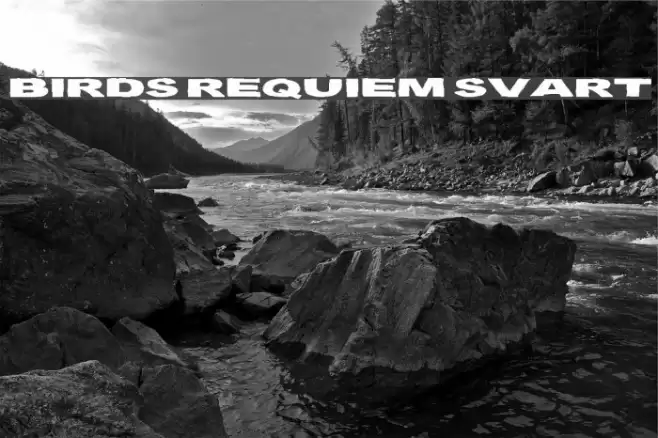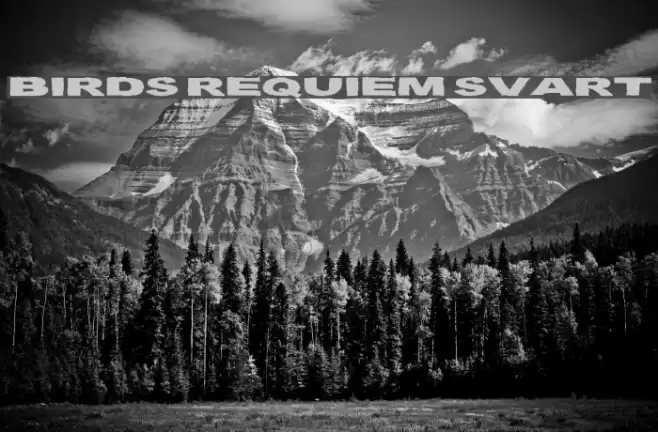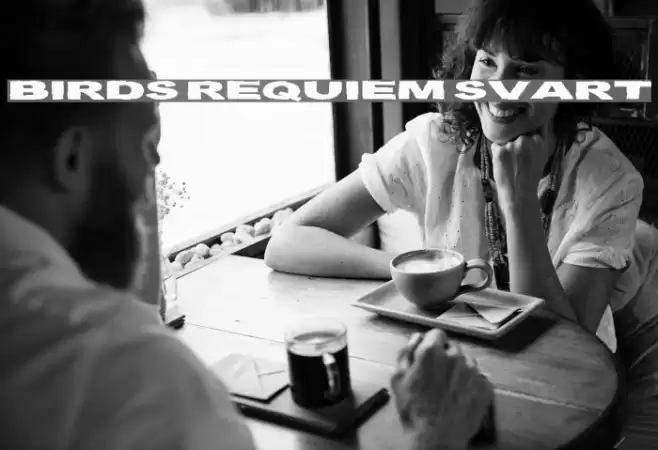
Birds Requiem Svart Font
Birds Requiem Svart Description
This font exhibits a bold and impactful style, characterized by its thick, heavy strokes and slightly distressed appearance. The uppercase letters are particularly striking, with a strong presence that commands attention. The numbers and special characters maintain this boldness, ensuring consistency across all glyphs. The font's design suggests a sense of urgency and strength, making it ideal for projects that require a powerful visual impact. Its slightly rough edges add a touch of ruggedness, enhancing its overall appeal.
A bold, distressed font with thick strokes and a strong presence from Uncategorized fonts.
- Proposed Projects: Ideal for poster headlines, branding projects, album covers, and any design requiring a bold statement.